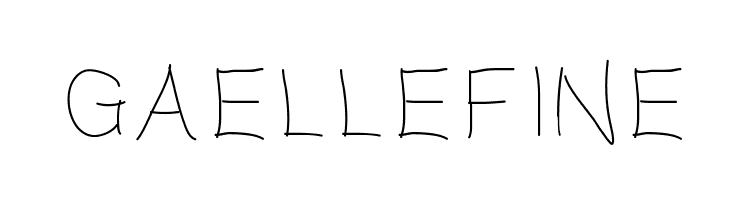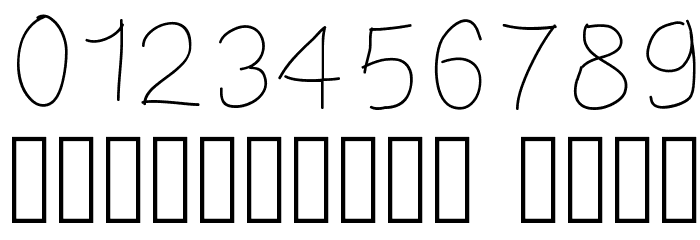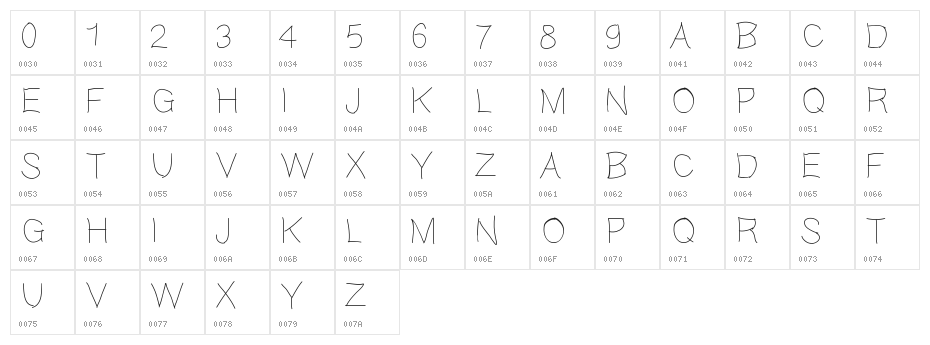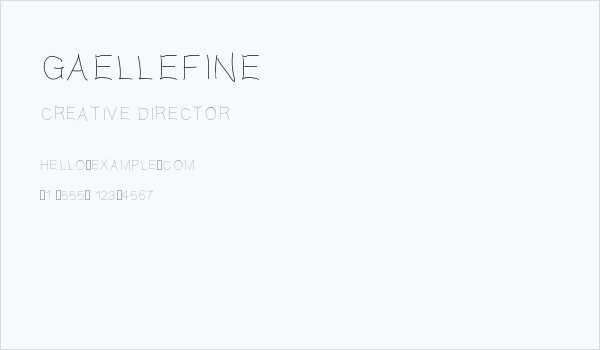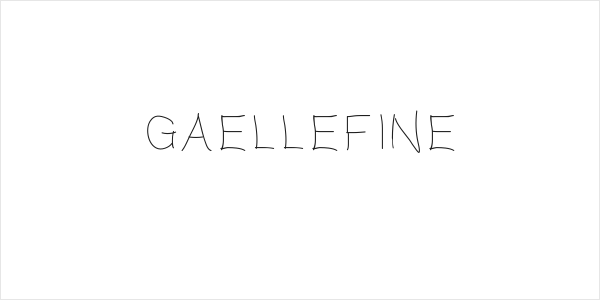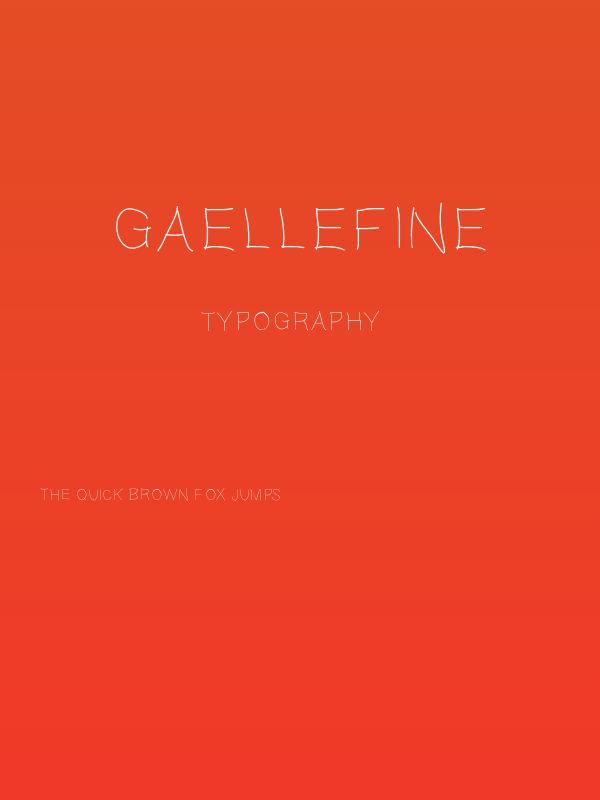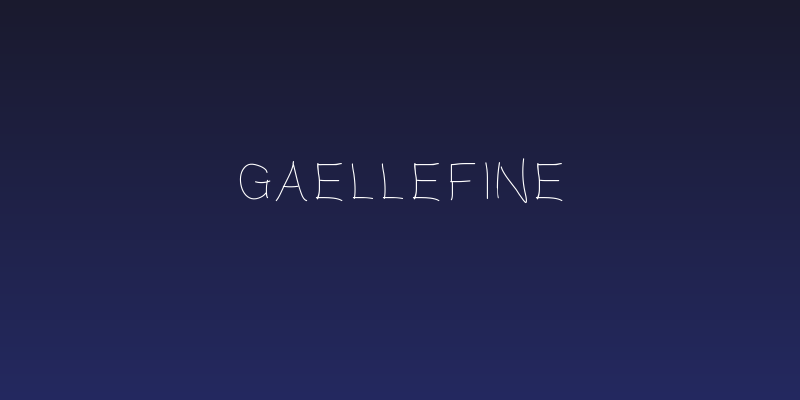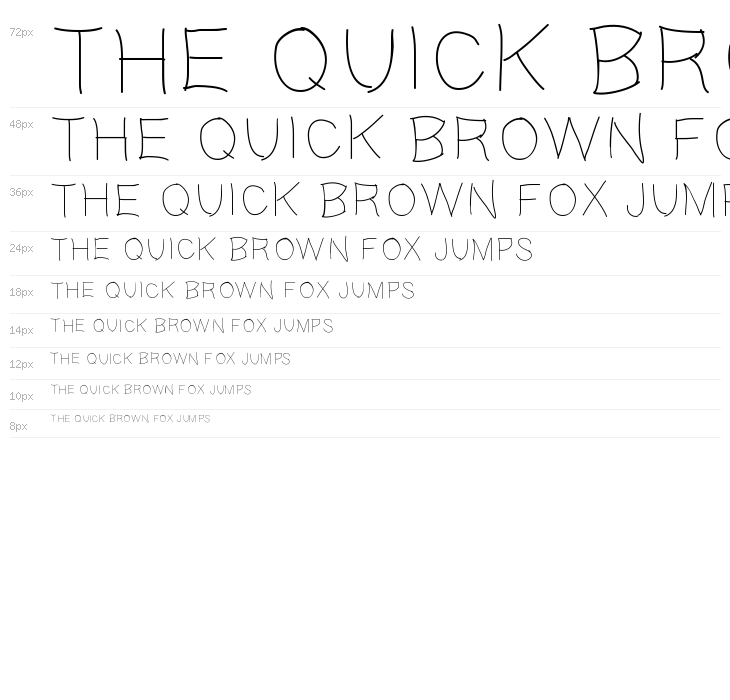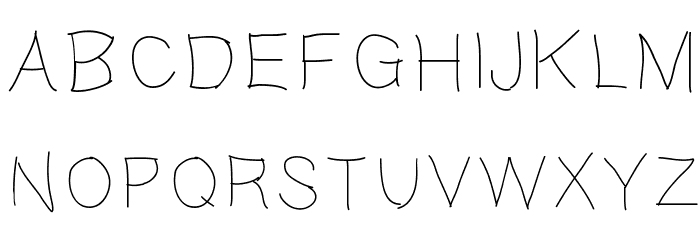
Gaellefine Font
Gaellefine Description
This font features a whimsical and playful handwritten style, characterized by its thin, slightly irregular strokes that give it a casual and informal appearance. The letters are tall and narrow, with a slight tilt that adds to the dynamic feel. The uppercase and lowercase letters maintain a consistent style, while the numerals are distinct with a quirky touch. The special characters complement the overall design, making it suitable for creative and artistic projects. Its unique charm makes it stand out, offering a friendly and approachable vibe.
| Overall Style | Playful, Casual |
| Proposed Projects | Ideal for greeting cards, children's books, casual invitations, and creative branding. |